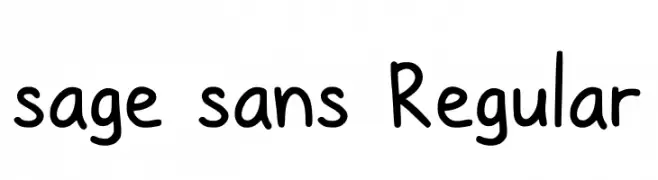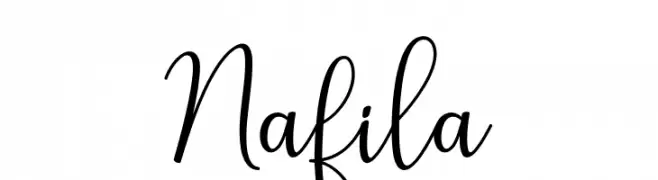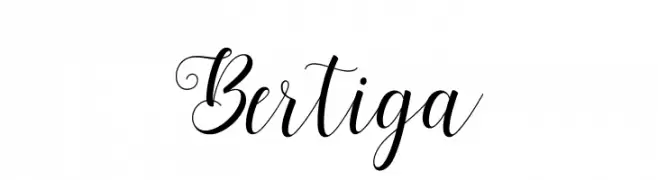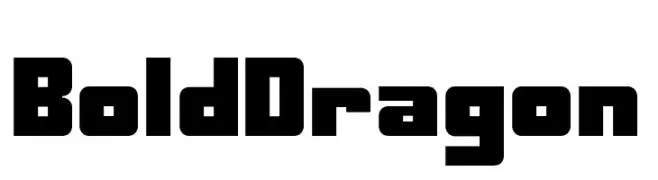
A sophisticated, cursive font with elegant, flowing lines.
A playful, hand-drawn font with smooth, rounded edges and consistent stroke widths.
A bold, expressive handwritten font with dynamic brush strokes.
A playful, bold handwritten font with a casual and dynamic style.
An elegant script font with fluid, cursive strokes and decorative flourishes.
An elegant script font with flowing, interconnected letters and intricate swirls.
A playful, casual handwritten font with fluid, connected strokes.
A bold, modern font with clean lines and geometric structure.
A modern, geometric sans-serif font with uniform stroke widths and a minimalist style.
A bold, geometric font ideal for impactful headlines and modern designs.